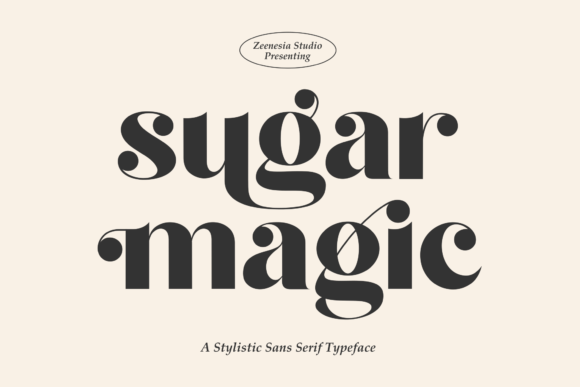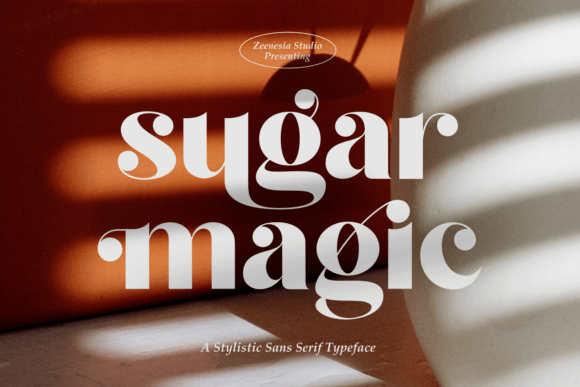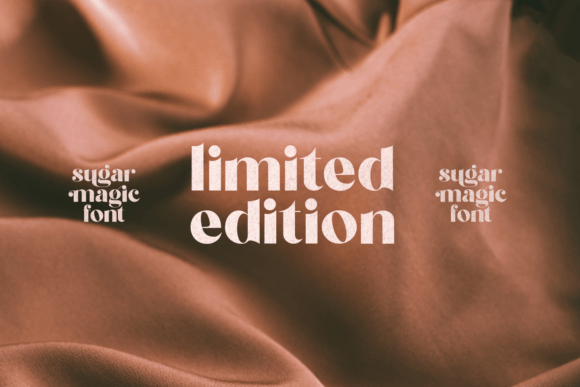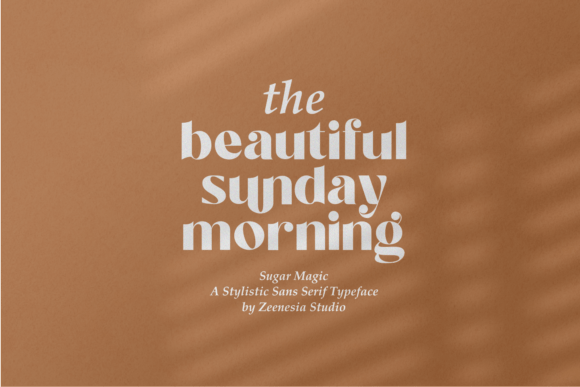
Sugar Magic Font: Elegant Sans Serif for Modern Logo Design
About the Sugar Magic Font
Experience the unique personality of Sugar Magic Font, a font designed for impact. Sugar Magic is a modern and elegant sans-serif font. Sugar Magic is well-suited for advertising, branding, logotypes, packaging, titles, headlines, and editorial designs.
Sugar Magic Font Usage Examples
Sugar Magic Font Example